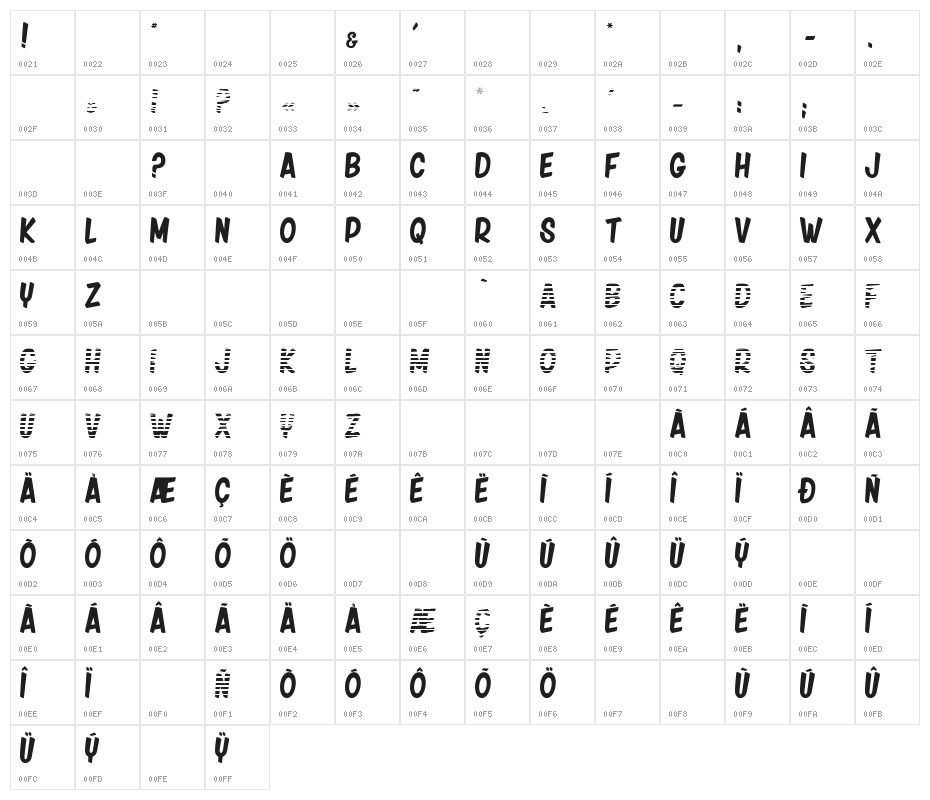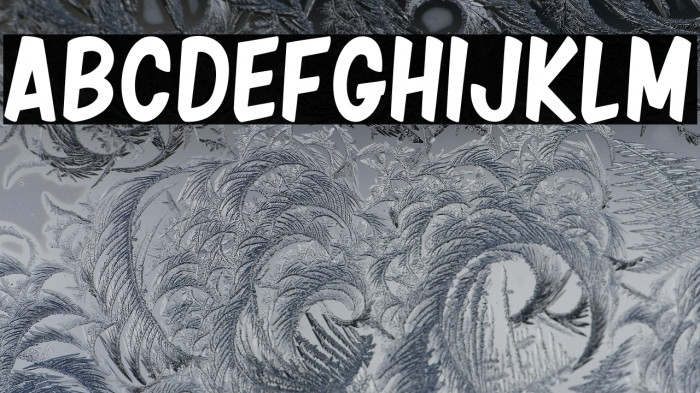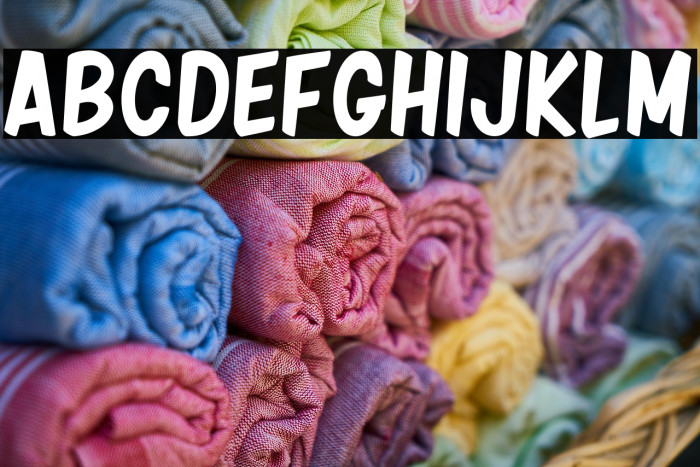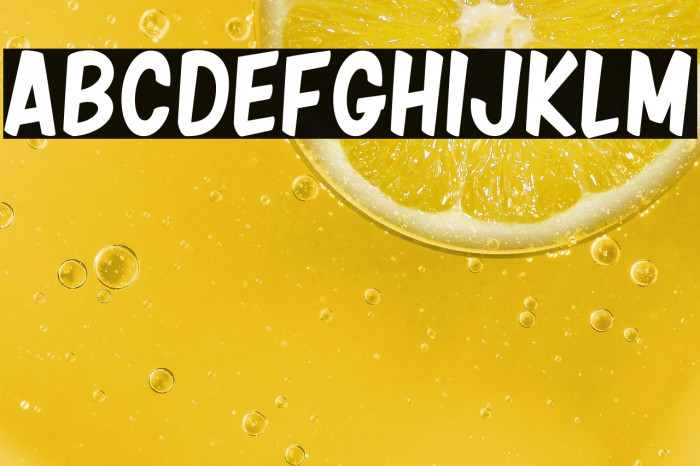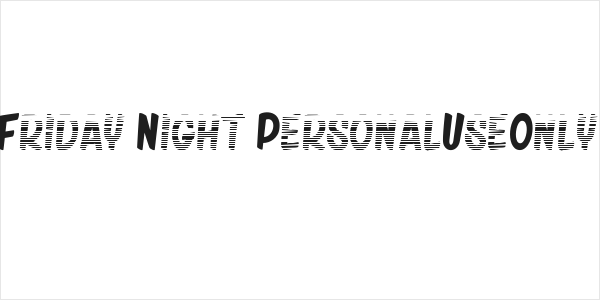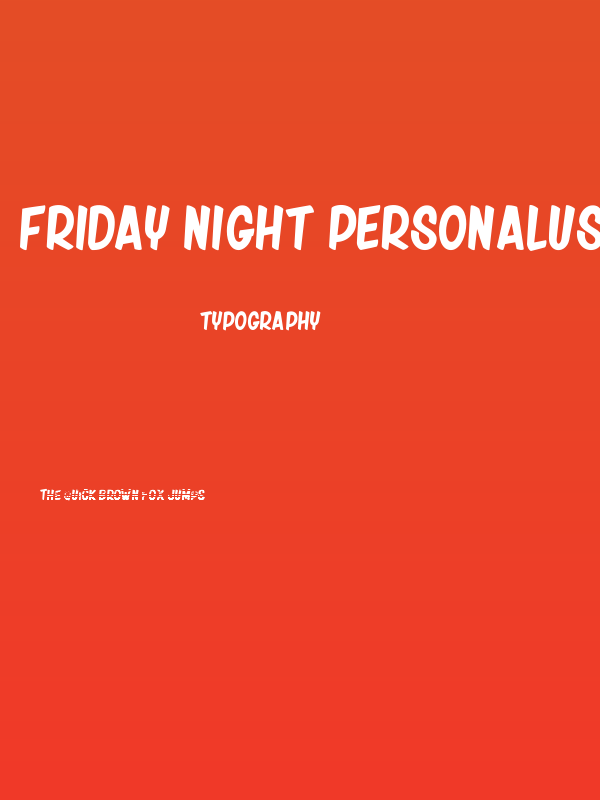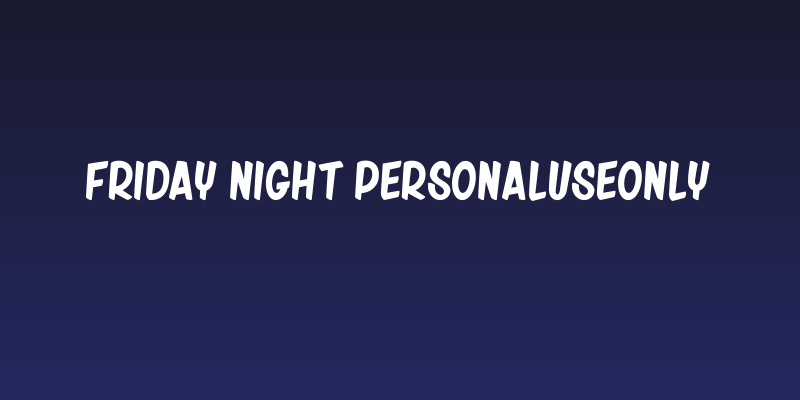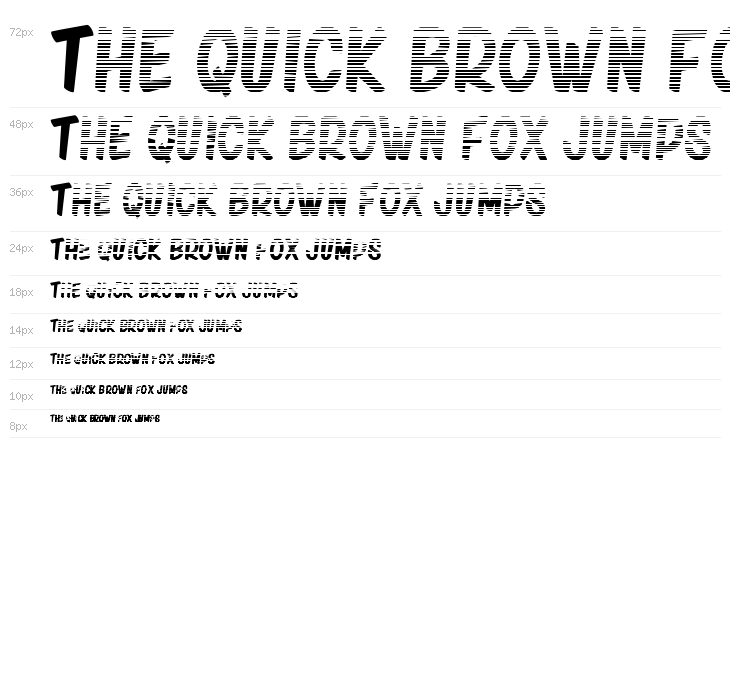
Friday Night_PersonalUseOnly Font
Friday Night_PersonalUseOnly Description
This font features a bold and dynamic style with a playful and energetic vibe. The uppercase letters are robust and slightly slanted, giving a sense of movement and excitement. The lowercase letters maintain the same boldness, ensuring consistency across the typeface. The unique aspect of this font is its striped pattern, which adds a layer of texture and visual interest. The special characters, including punctuation marks and symbols, are designed with the same bold and striped aesthetic, making them stand out. This font is ideal for projects that require a fun and lively touch, such as posters, event flyers, and creative branding.
| Proposed Projects | Ideal for posters, event flyers, and creative branding projects. |